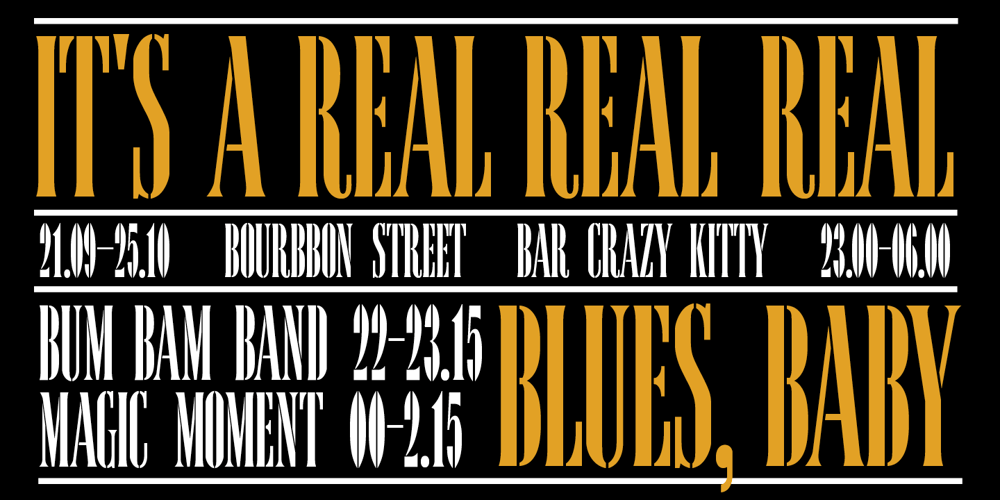
Bardi
Bardi font
Bardi Font Family was designed by Manvel Shmavonyan and published by ParaType. Bardi contains 1 styles and family package options. An original typeface designed for ParaType in 2004 by Armenian designer Manvel Shmavonyan. Based on the lettering created in 1970s by outstanding Armenian type designer Henrik Mnatsakanyan (1923-2001) of the same name. In Armenian ‘Bardi’ means ‘Poplar’. Extra compressed decorative stenciled typeface. Its letterforms resemble many Neo-Classicism extra compressed faces and magazine lettering of the 1950s-60s. For use in advertising and display typography especially in magazine headlines and logos.